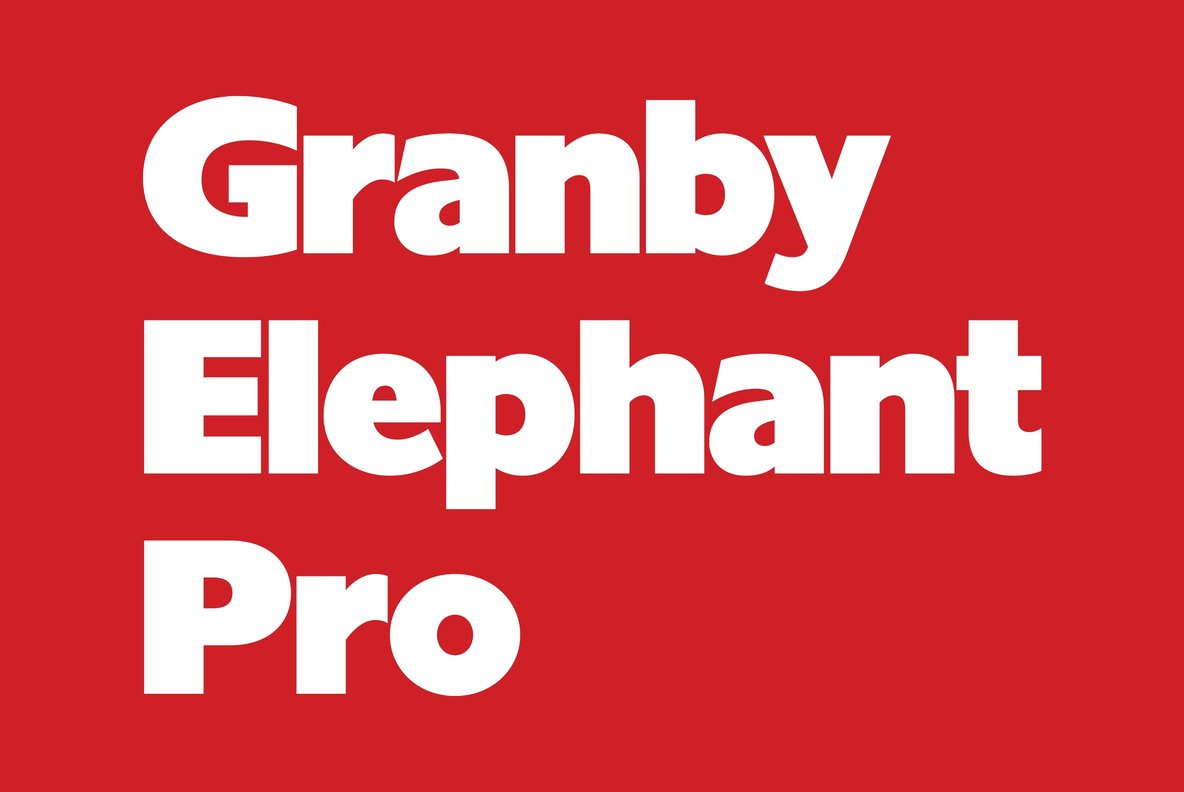
Granby Elephant Pro Font
Granby Elephant Pro Font is perfect for bold branding projects, impactful poster design, attention-grabbing headline typography, circus-themed materials, entertainment venue signage, vintage advertising campaigns, theatrical productions, and dynamic display applications. This commanding typeface works magnificently in both digital applications and print media where visual weight and memorable presence are essential design considerations.
What makes Granby Elephant Pro Font so exciting is its extraordinary combination of massive visual impact and refined craftsmanship that creates an unforgettable typographic statement reminiscent of classic American display typography. The font features ultra-bold letterforms with distinctive character proportions, powerful stroke weights, and carefully balanced spacing that commands immediate attention while maintaining excellent readability. Its commanding personality and vintage-inspired heritage make it ideal for brands seeking to make bold statements and capture audiences' attention in competitive visual environments.
The Granby Elephant Pro Font family includes multiple weight variations from bold to ultra-black, along with condensed versions and decorative alternates. Each style maintains the typeface's powerful character while offering comprehensive character sets including bold numerals, impact-focused punctuation marks, and special symbols designed to enhance high-impact communications and attention-grabbing design applications.
This extraordinary typeface represents the perfect fusion of vintage American typography and contemporary display functionality for maximum visual impact. Whether you're developing entertainment brand identities, creating bold advertising campaigns, or designing theatrical promotional materials, Granby Elephant Pro Font Free Download delivers the commanding presence and versatility needed to dominate visual landscapes. The font's circus-inspired aesthetic makes it particularly effective for entertainment venues, event promotions, bold advertising agencies, and organizations requiring maximum visual impact and memorable brand recognition.
The meticulously crafted ultra-bold construction and optimized legibility in Granby Elephant Pro Font ensure powerful visual dominance while maintaining clear communication across all display applications. Its massive presence makes it ideal for headlines, signage, and branding where its full commanding character can create unforgettable impressions and establish immediate visual authority in any competitive environment.